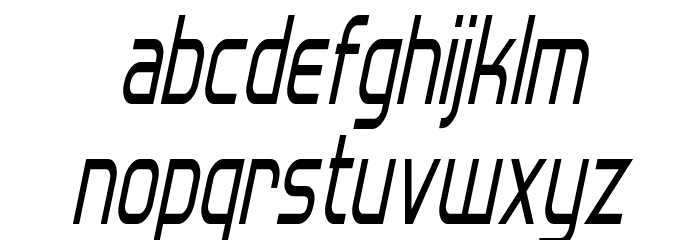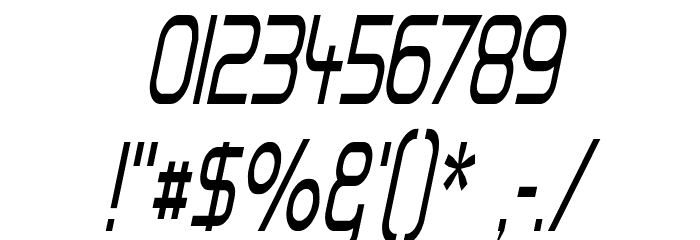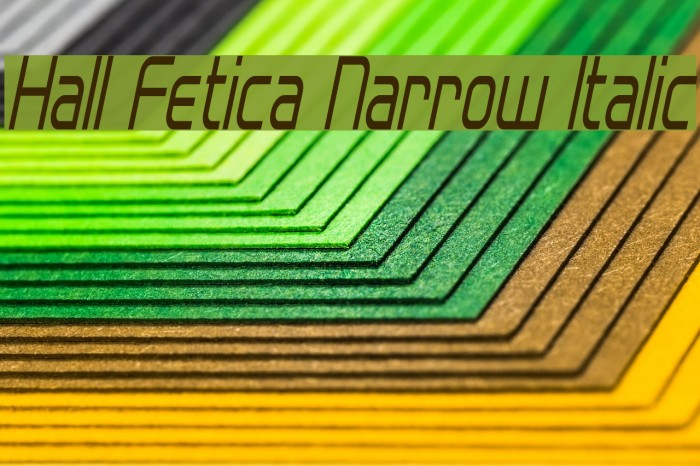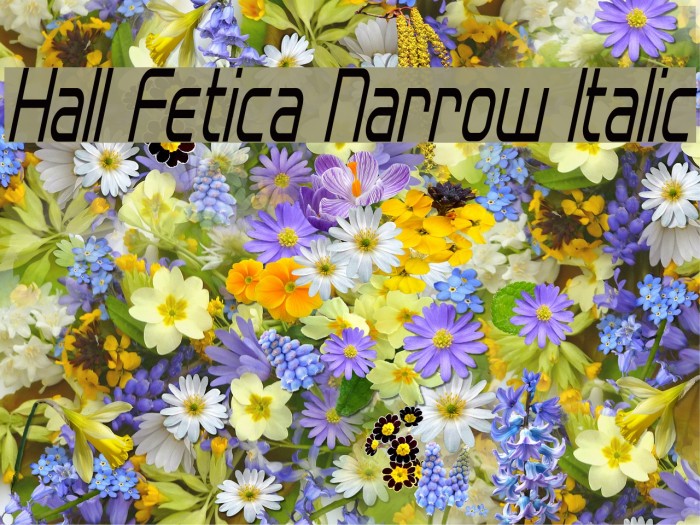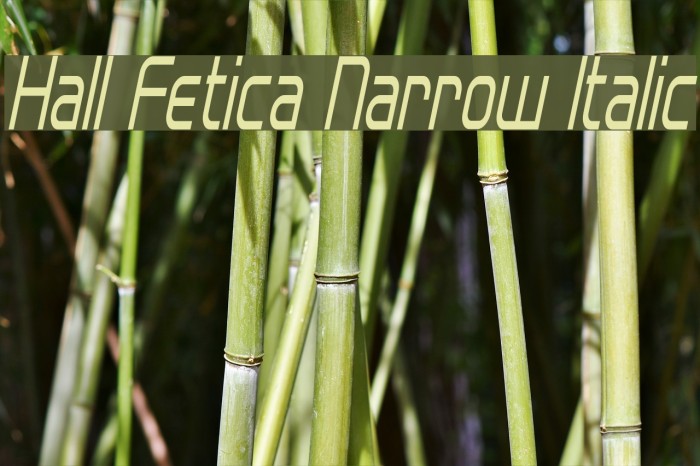
Hall Fetica Narrow Italic Font
This font features a sleek, modern design with a narrow and italicized style. The characters are elongated and slightly slanted, giving it a dynamic and forward-moving appearance. The strokes are consistent in thickness, providing a uniform look across all characters. The uppercase letters are tall and commanding, while the lowercase letters maintain a balanced proportion. Numbers and special characters are designed to match the overall aesthetic, ensuring cohesion throughout. This font's unique style makes it suitable for projects that require a contemporary and sophisticated touch.
A sleek, narrow, and italicized font with a modern aesthetic.
- Proposed Projects: Ideal for branding, advertising, and editorial design where a modern and dynamic look is desired.